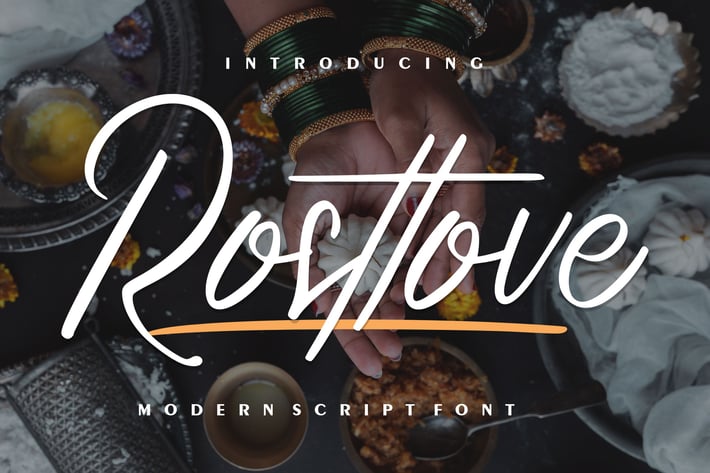
Rosttove | Modern Script Font
Rosttove | Modern Script Font with a calligraphy style, So beautiful on invitation like greeting cards, branding materials, business cards, quotes, posters, and more!